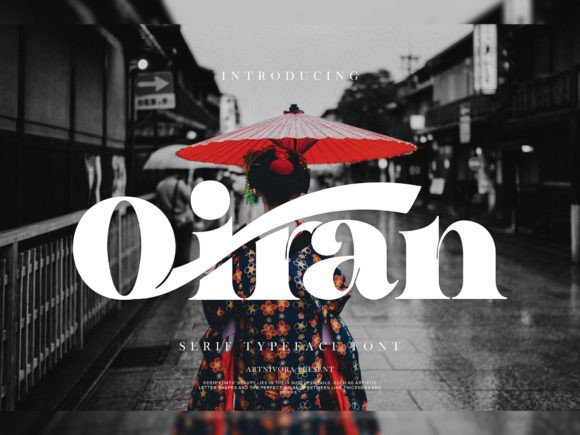
Prepare yourself to be mesmerized by the enchanting Oiran Font, an alluring and bold serif font, skillfully crafted by the brilliant minds at artnivora.std. This typographic gem will captivate your senses with its versatile style, effortlessly enhancing your creative projects with a touch of sophistication and elegance.
Embark on an artistic journey with Oiran Font, where every letterform is a work of art, meticulously designed to evoke emotions and convey messages with remarkable clarity. Let your imagination soar as you explore the endless possibilities, from crafting stunning wedding invitations that exude romance and timeless beauty, to designing captivating social media posts that demand attention in a crowded digital landscape.
Unleash your inner artist and transform ordinary text into captivating narratives with Oiran Font. Its remarkable versatility knows no bounds, adapting seamlessly to a multitude of design endeavors, including eye-catching logos, brochures, and posters that command attention and leave a lasting impression on your audience.
With Oiran Font as your creative companion, you'll discover the joy of effortless readability, where words flow harmoniously across the screen or printed page, guiding your readers through your content with unparalleled ease and elegance. This font was meticulously designed with navigation in mind, ensuring a seamless user experience and making your website or app a pleasure to navigate.
Step into the realm of creativity with Oiran Font, where elegance meets versatility, and let your imagination run wild. Experience the beauty of typography at its finest, where every word becomes an expression of your unique style and personality. The possibilities are endless, and the journey is yours to explore. Dare to embrace the allure of Oiran Font and watch your creative visions come to life with unparalleled beauty and grace.